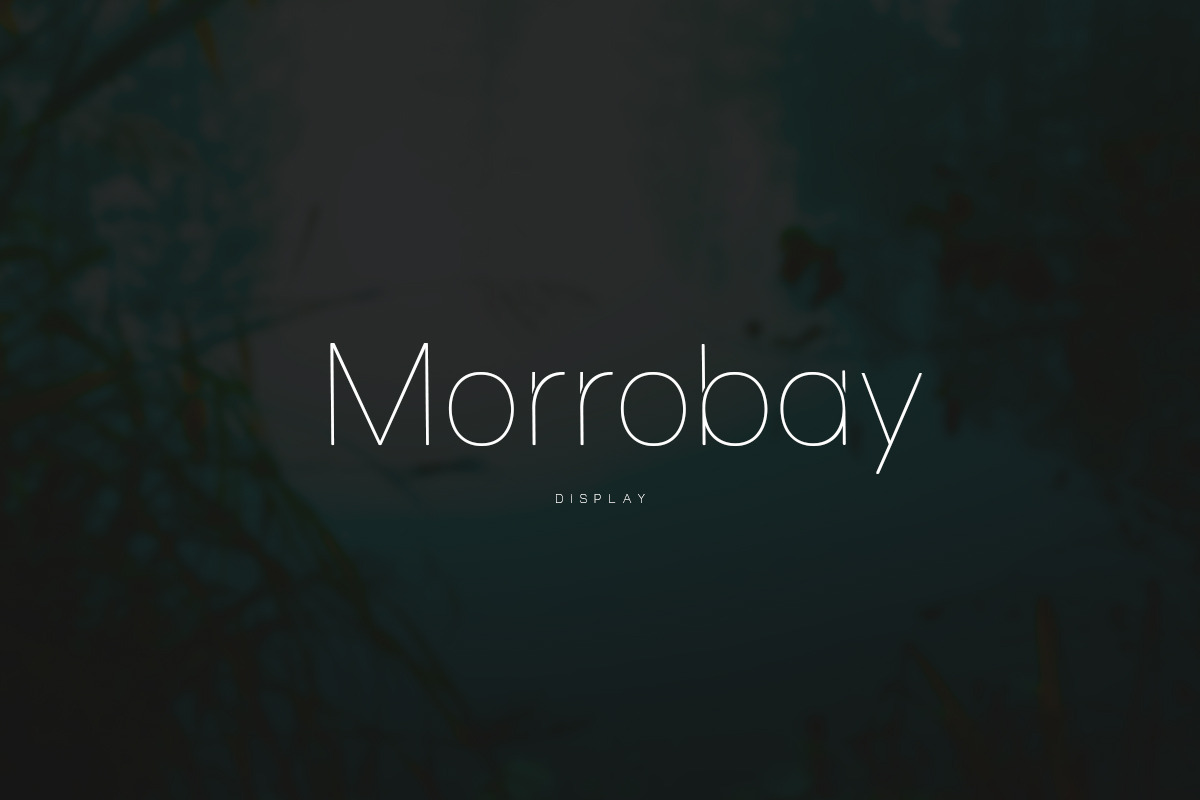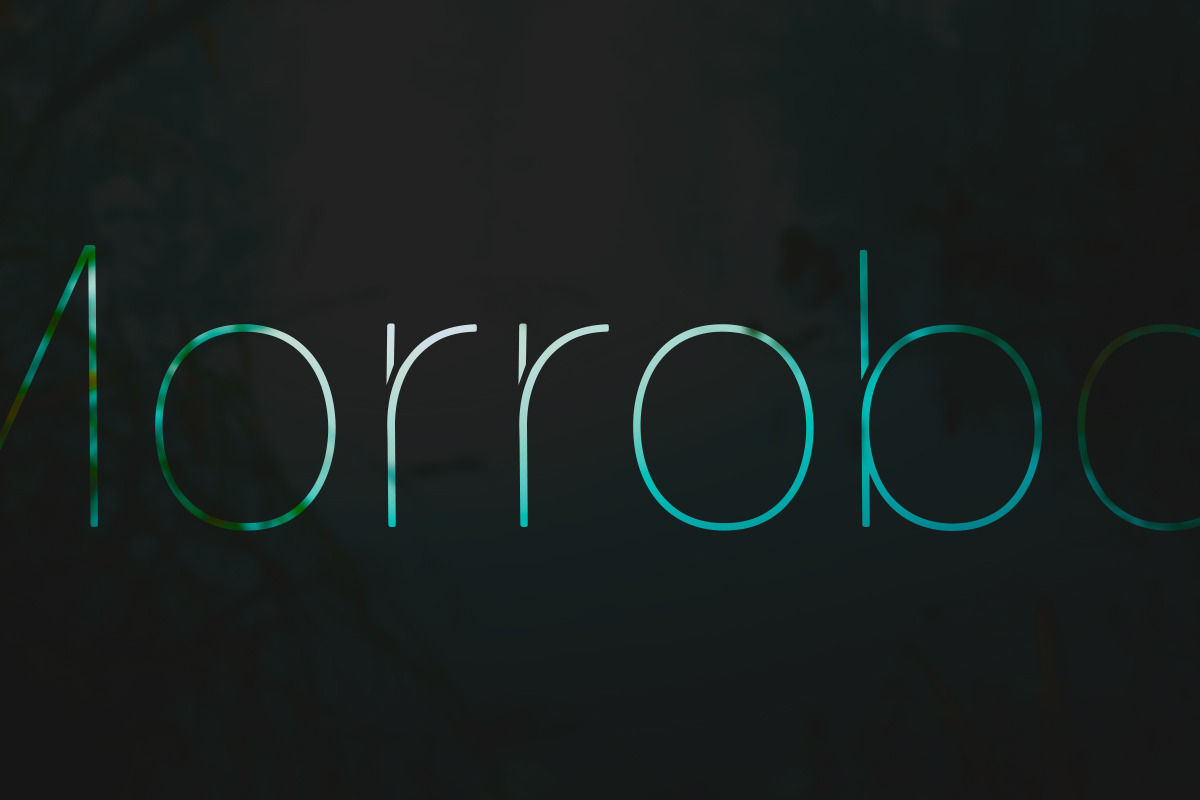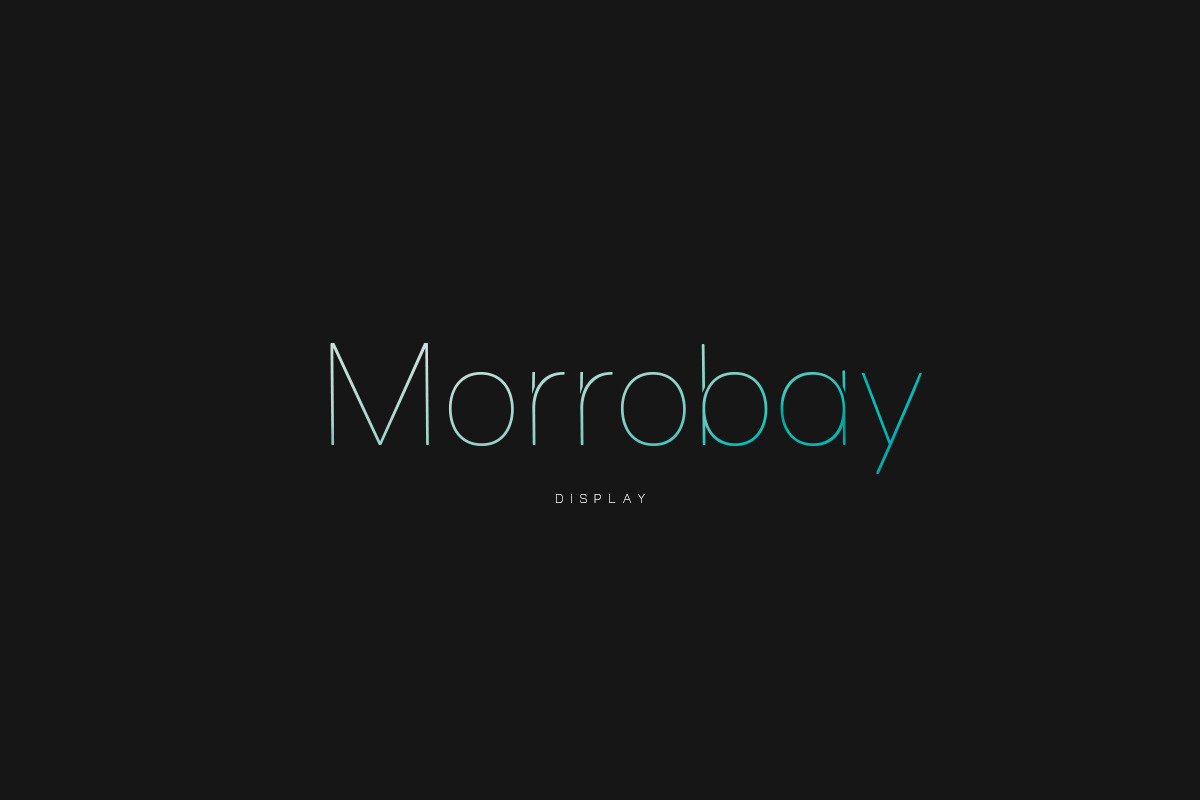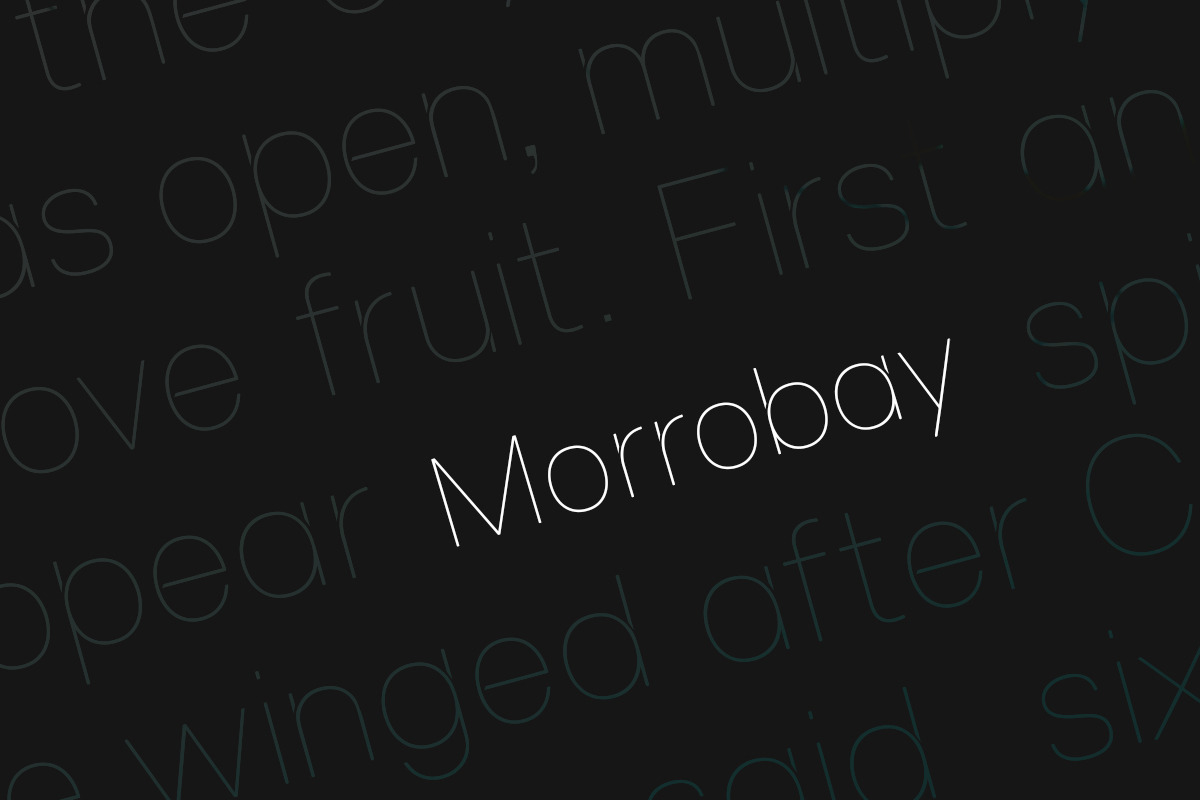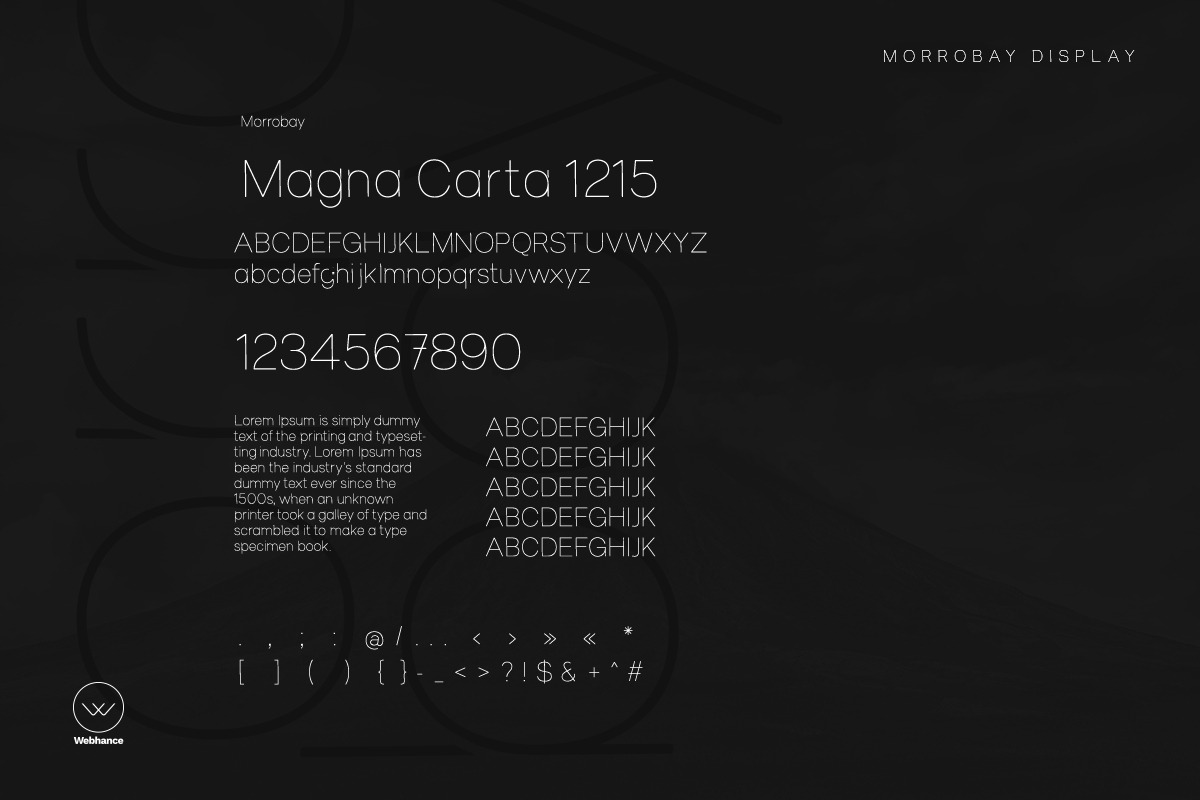
Morrobay Typeface
Morrobay is a modern Sans Serif typeface very much suitable for Film Posters, headlines, Block letter, Subheading, Logo Designs, Big Banners. Creative & Decorative Typography Web Designs.
Morrobay is perfectly suited for eye-catching headlines. Its clean appearance and Light-weight make it a wonderful selection for being paired with more decorative, elaborate subheading fonts._